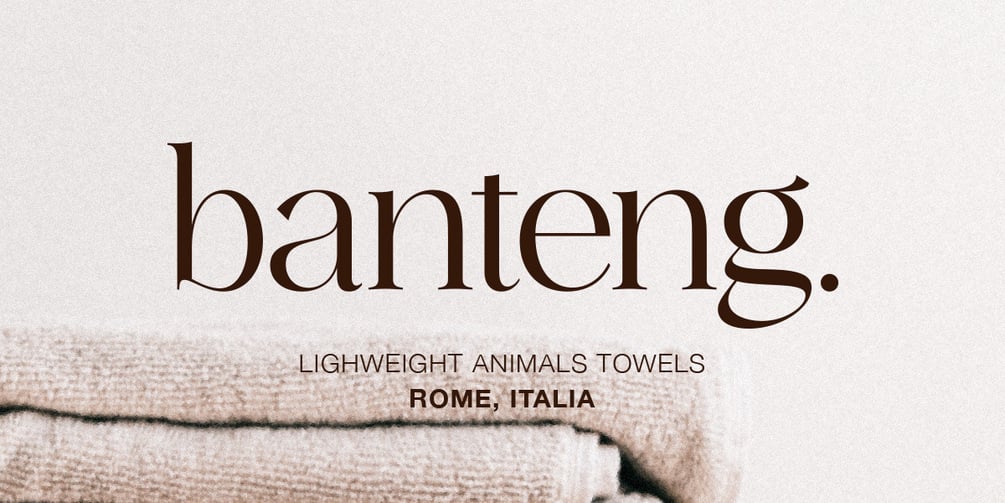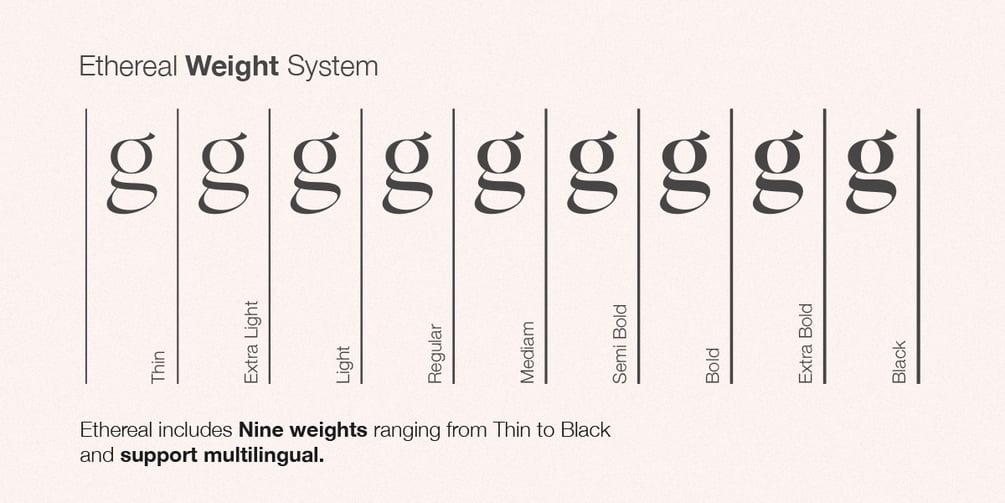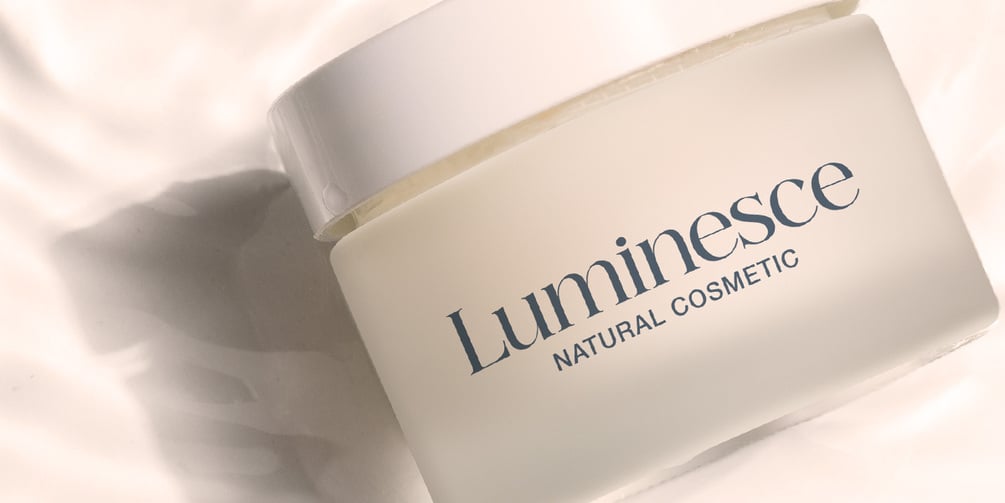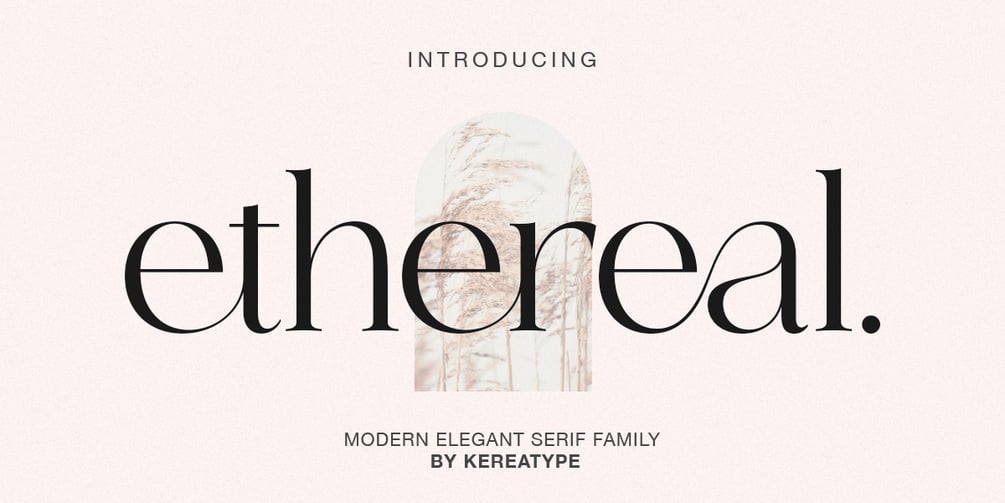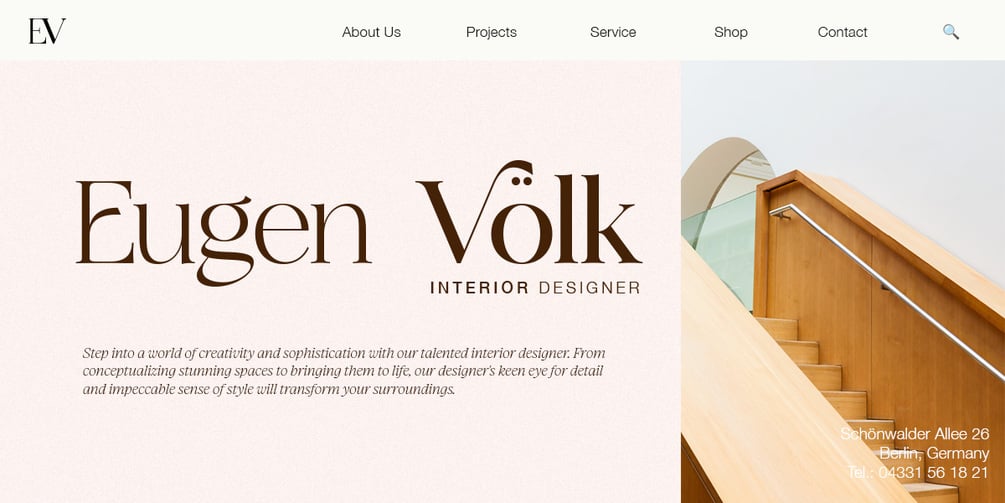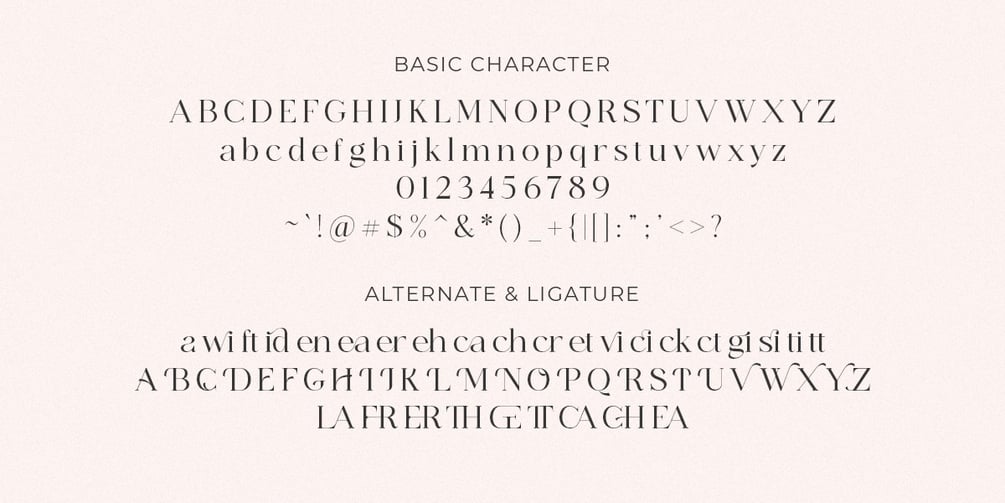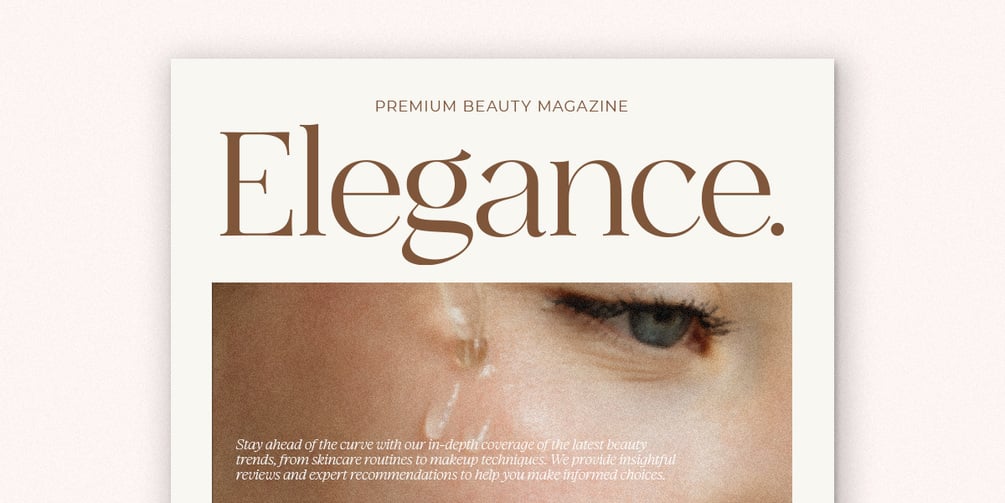
Ethereal - Elegant Serif Font Family
Ethereal is a modern serif font family with 9 weights, blending elegance with contemporary style. Designed by Kereatype, this font exudes sophistication and charm, making it perfect for elevating your designs. With its versatile weights and stylish details, Ethereal is more than just a font, it’s a statement of modern luxury.
Created from the insights of experienced graphic designers, Ethereal was born to fulfill the demand for unique yet elegant logos and branding. Whether for logos, branding, or editorial design, this font family offers the perfect balance of class and uniqueness, helping your projects stand out effortlessly.
Features:
• Stylistic Alternates & Ligatures
• Standard & Discretionary Ligatures
• Multilingual characters